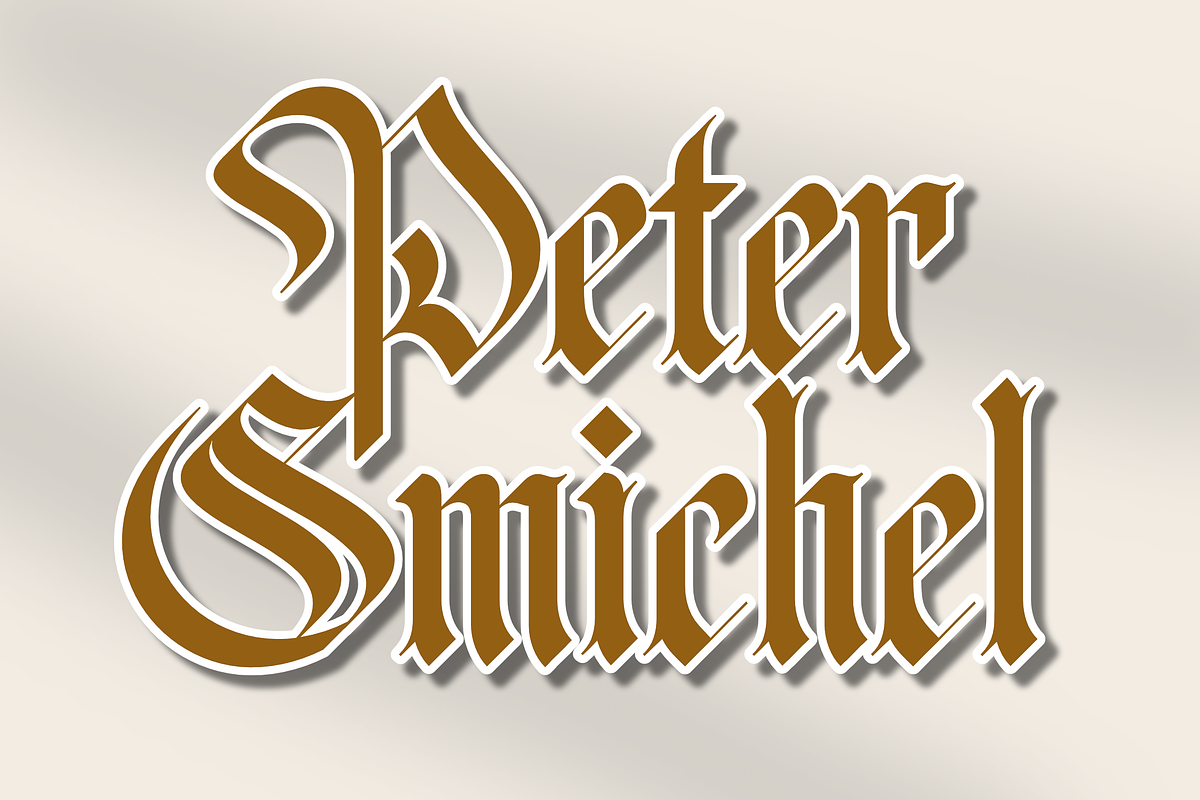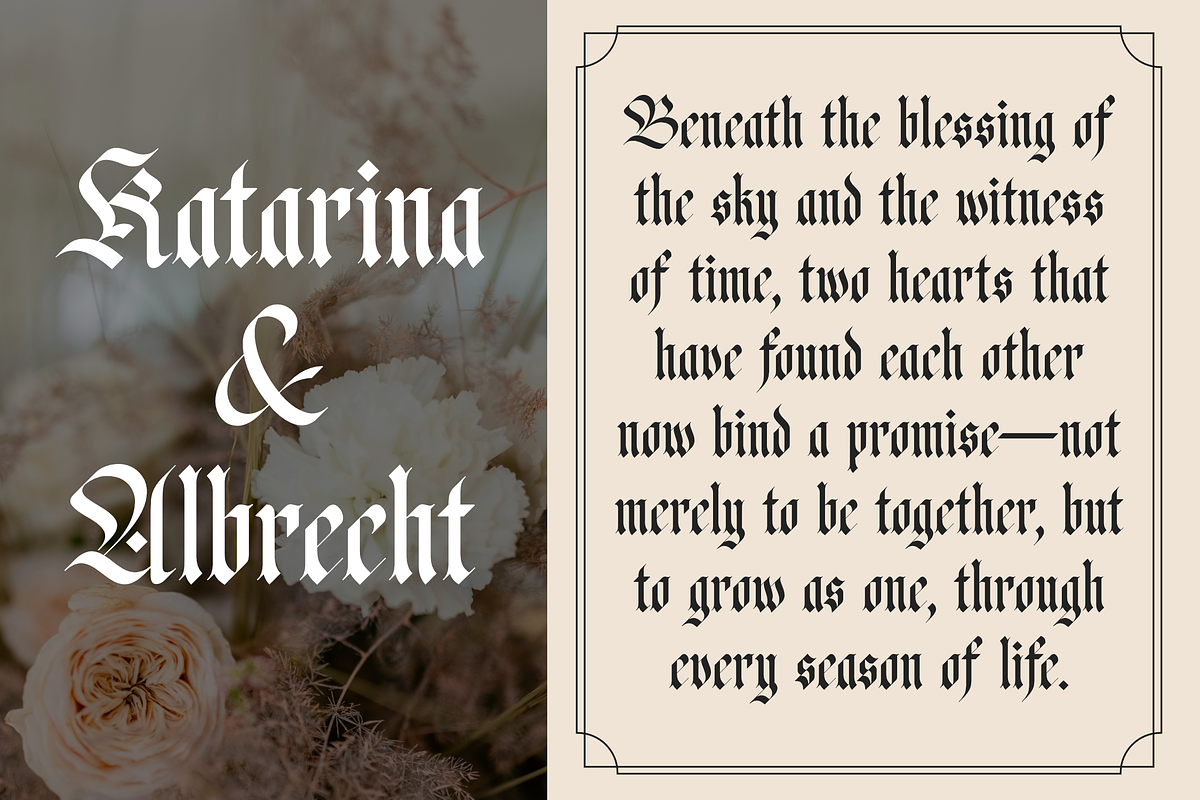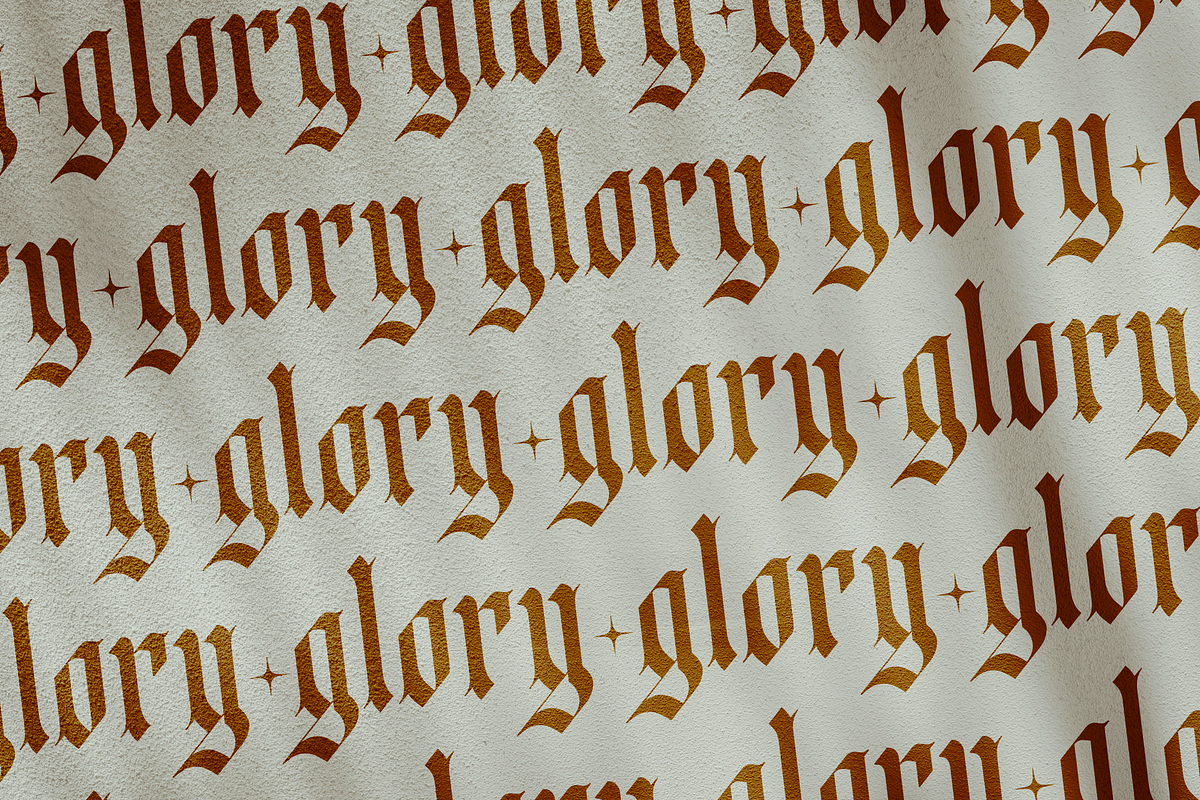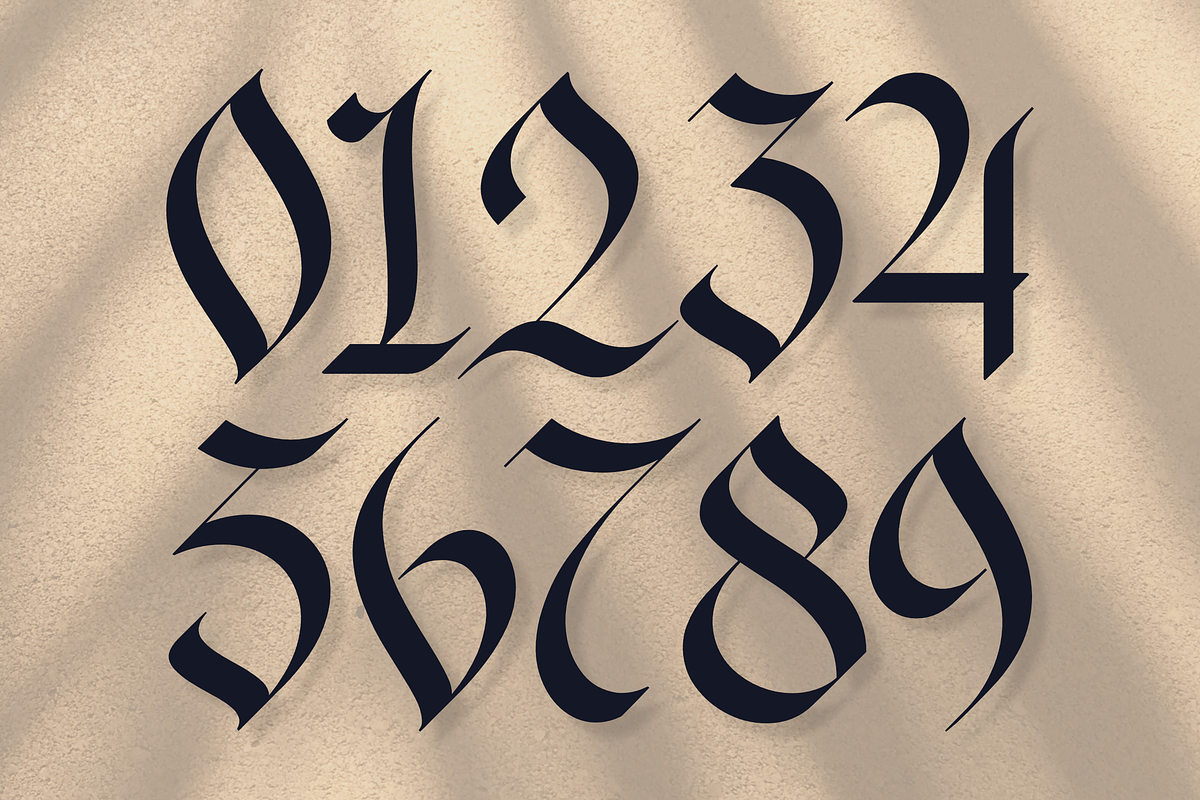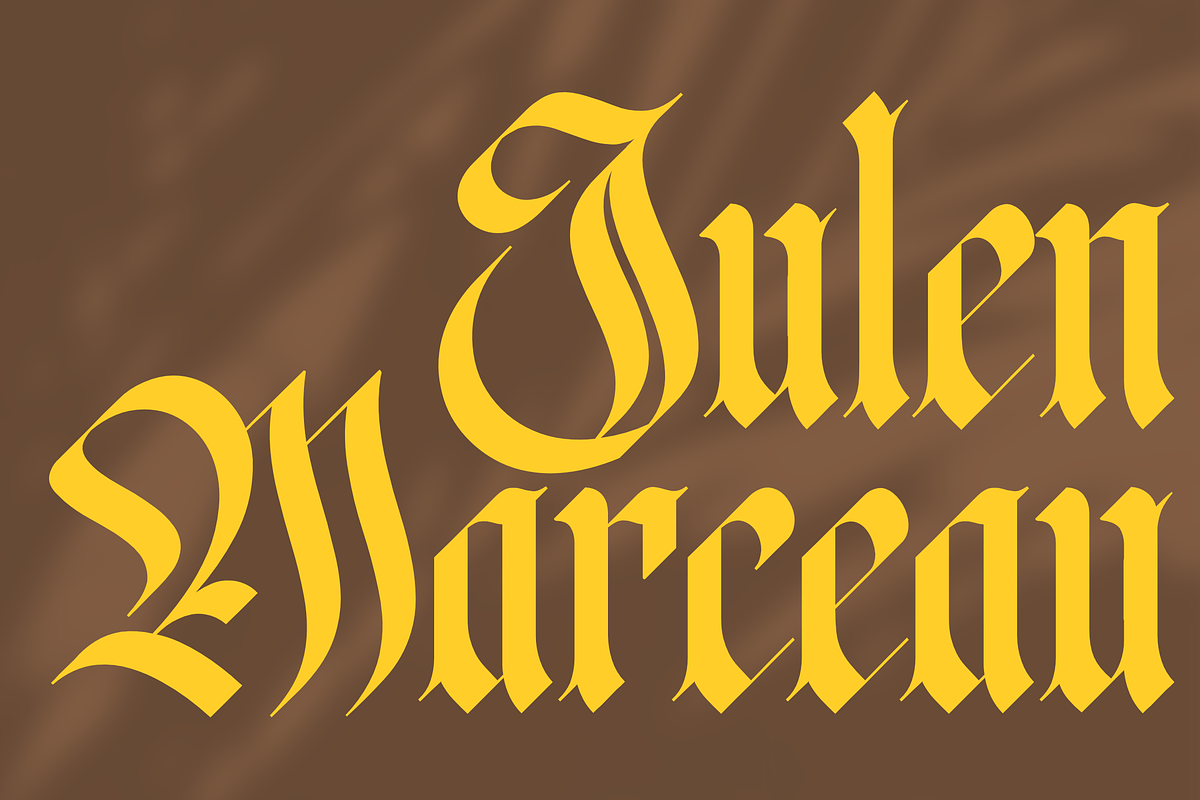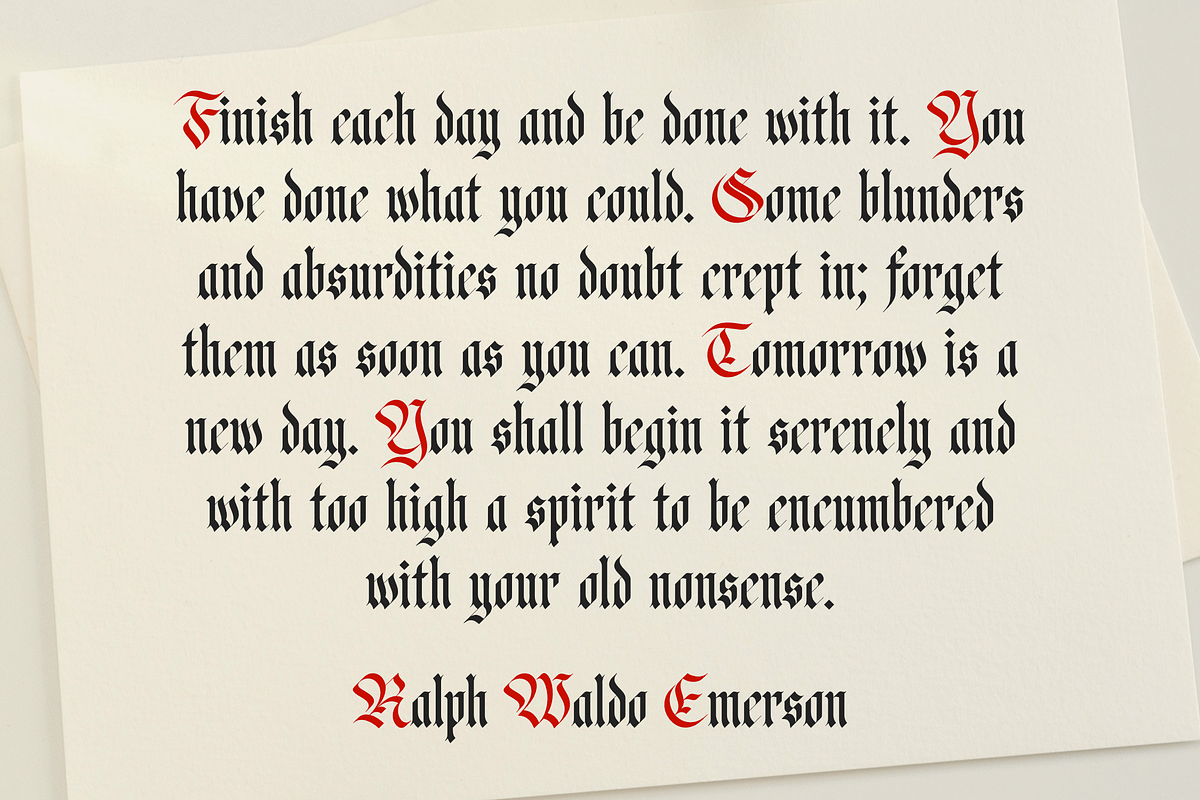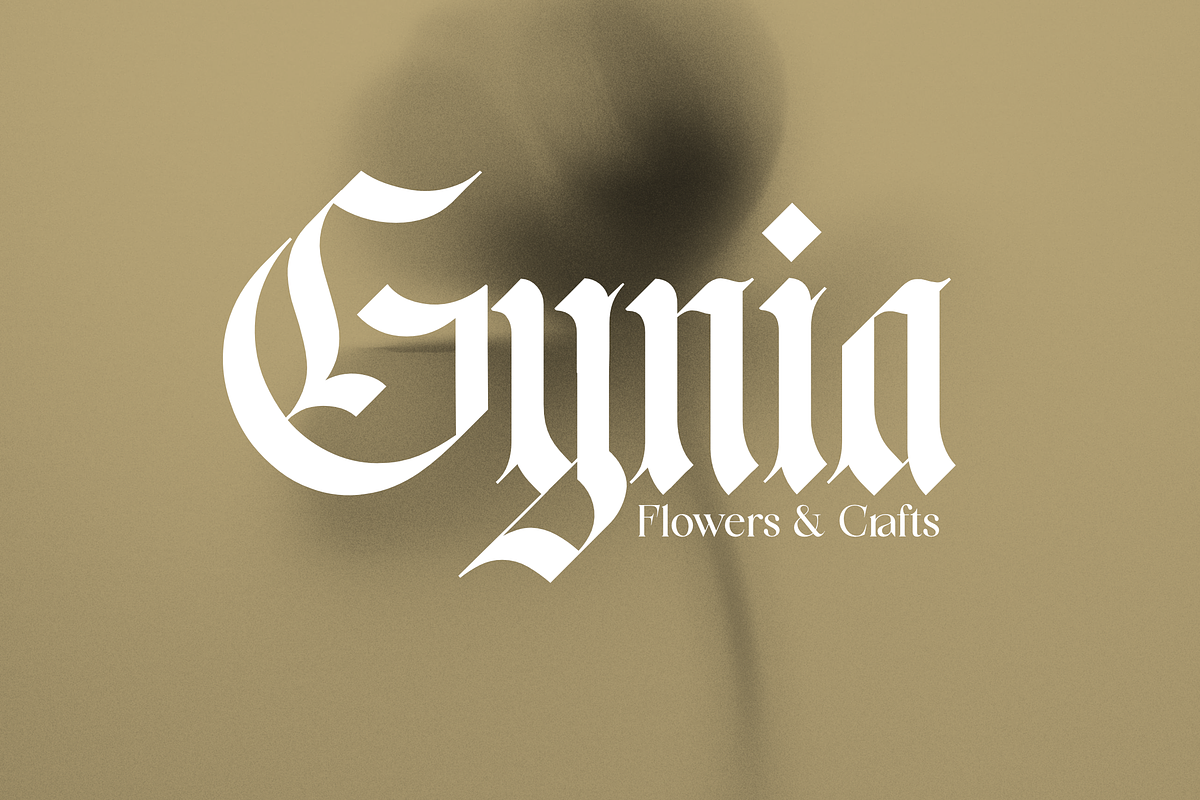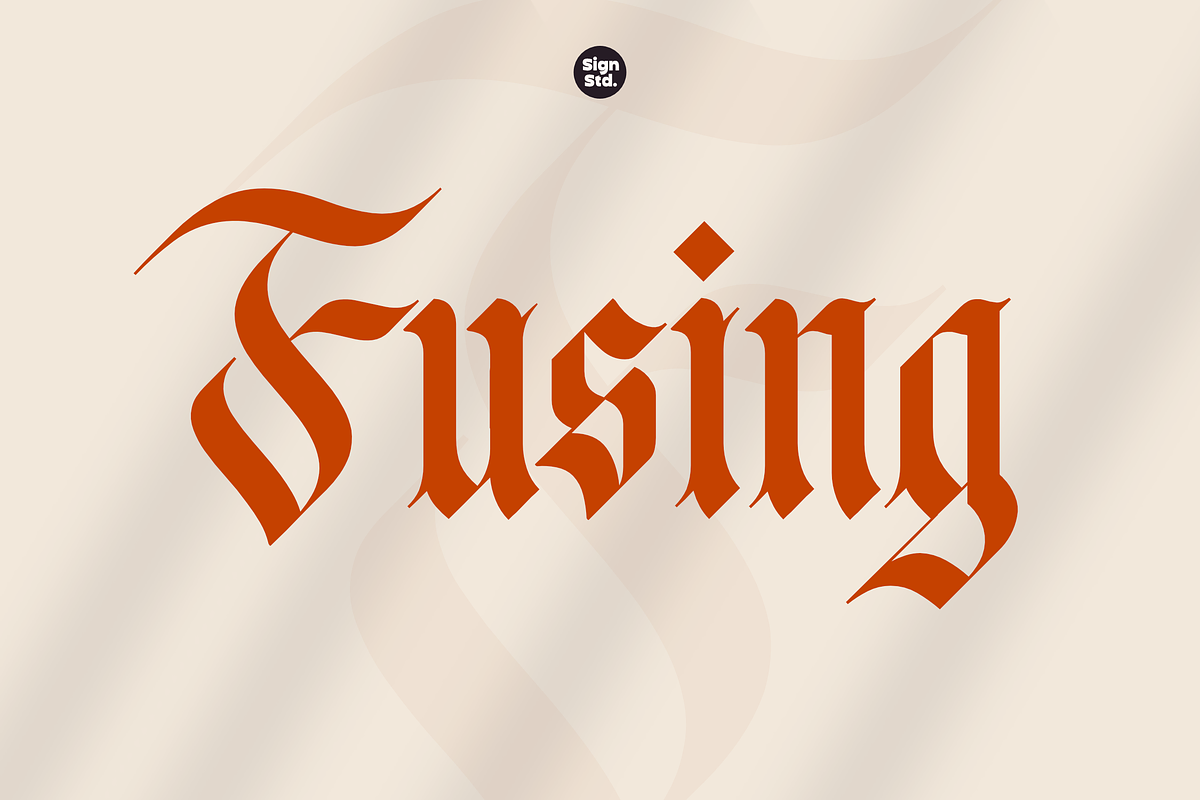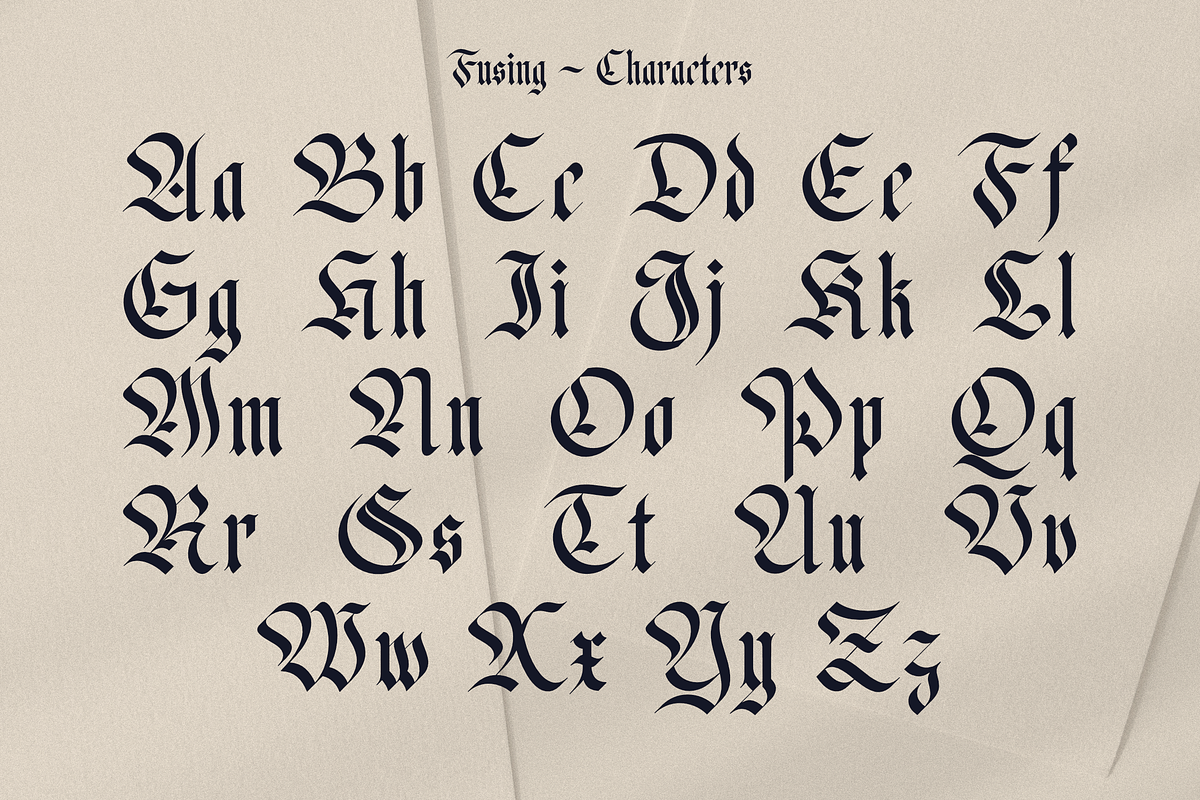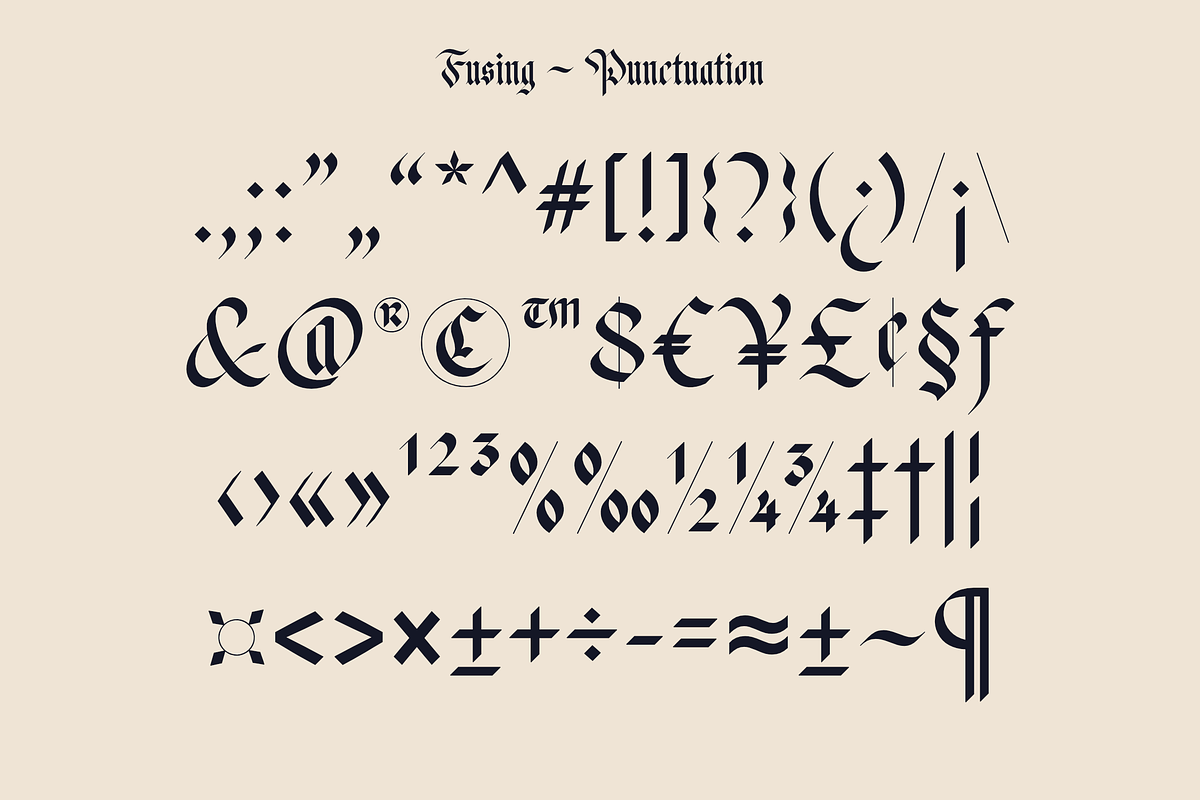
Fusing – Bold Blackletter Simplicity
Fusing – Bold Blackletter Simplicity Fusing is a contemporary blackletter typeface inspired by European calligraphic traditions. With clean contours, angular tension, and consistent rhythm, it delivers gothic expression without ornamental distractions. Ideal for headlines, posters, and typographic art that seek bold character and historic depth.